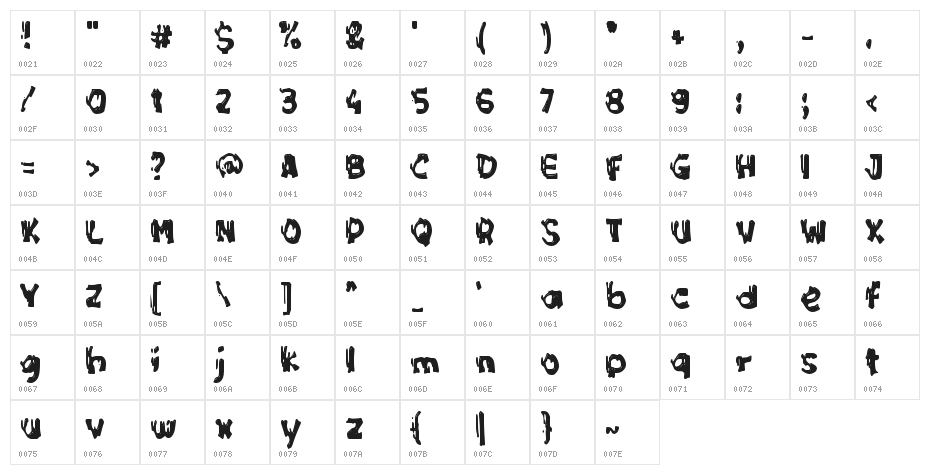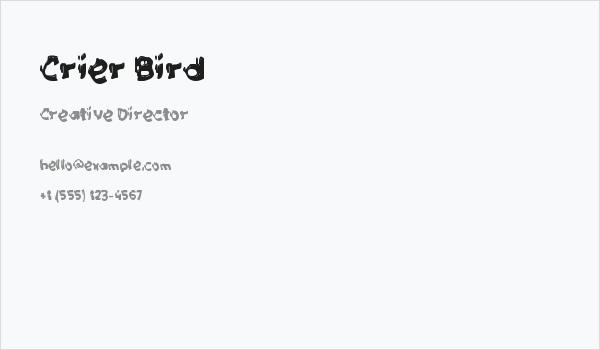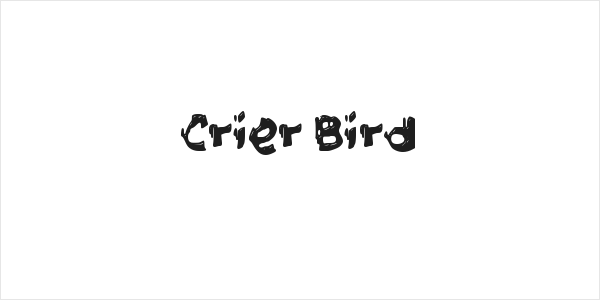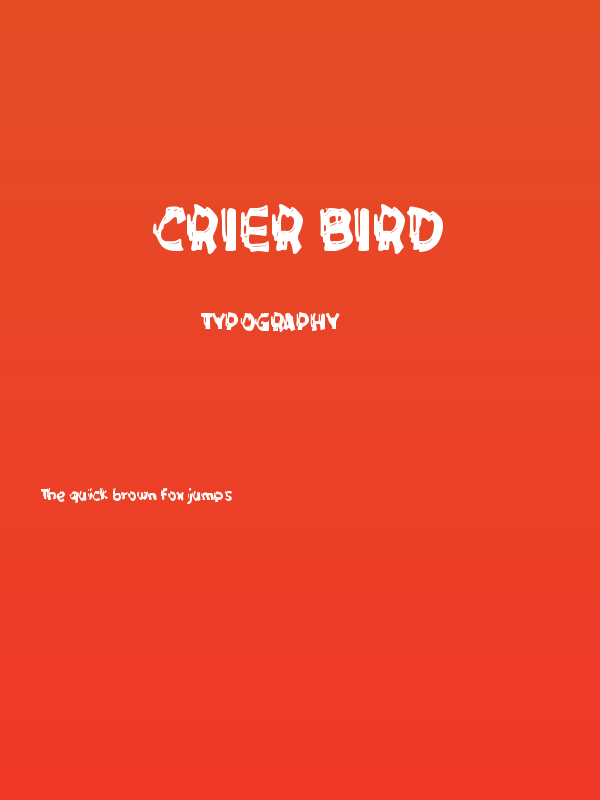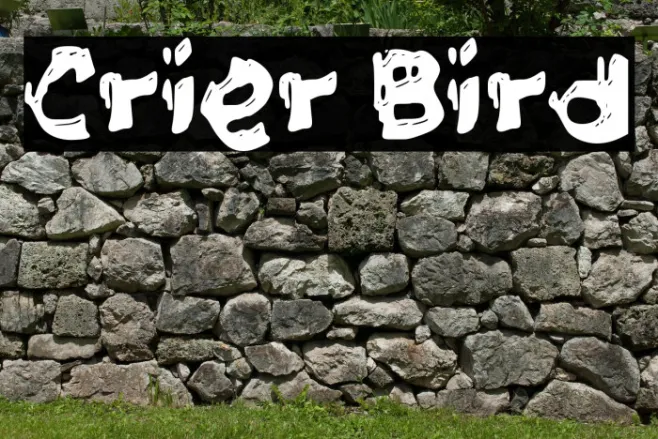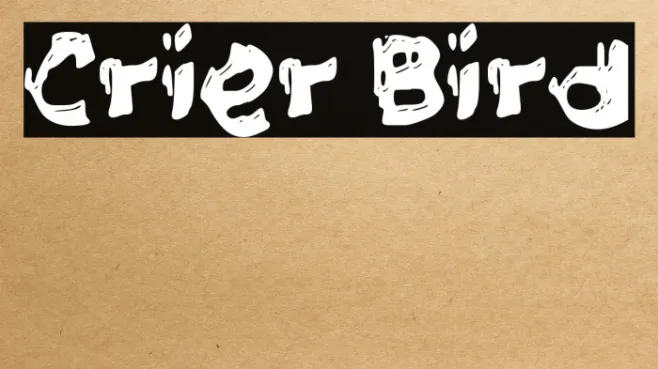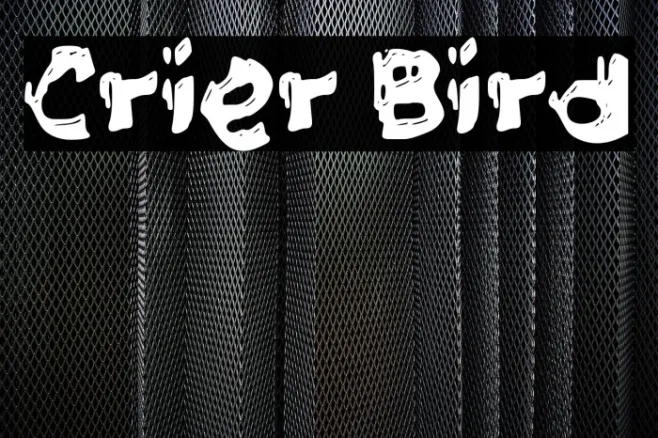
Crier Bird Font
Crier Bird Description
This font features a bold and expressive style with a hand-drawn appearance. The characters are irregular and have a distressed, textured look, reminiscent of brush strokes or ink splatters. The uppercase and lowercase letters maintain a consistent style, with exaggerated curves and uneven edges that give a dynamic and artistic feel. Numbers and special characters follow the same aesthetic, ensuring a cohesive look across all glyphs. This font's unique style makes it stand out, offering a creative and unconventional option for various design projects.
| Use Case | Headlines, Logos, Artistic projects |
| Proposed Projects | Ideal for posters, album covers, artistic branding, and creative projects that require a bold statement. |